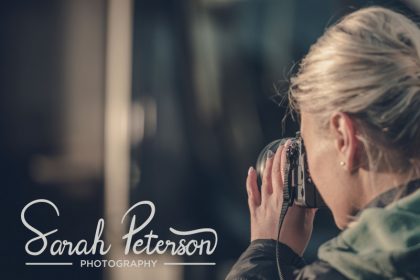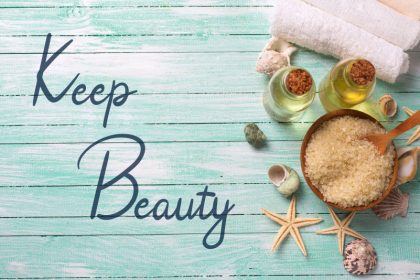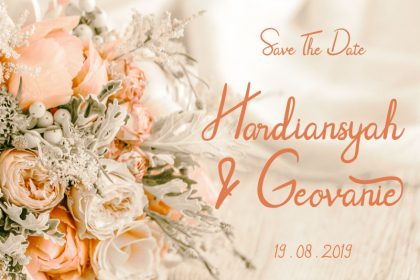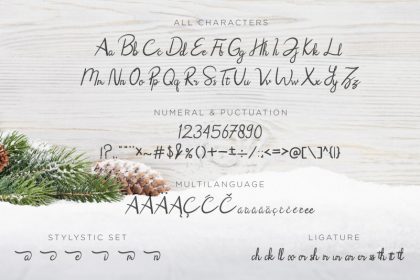
Rhoselinna handwritten font will be suitable for logo’s, branding projects, homeware designs, product packaging, mugs, quotes, posters, shopping bags, t-shirts, book covers, name card, invitation cards, greeting cards, label, photography, watermark, special events, and all your other lovely projects that need handwriting taste.